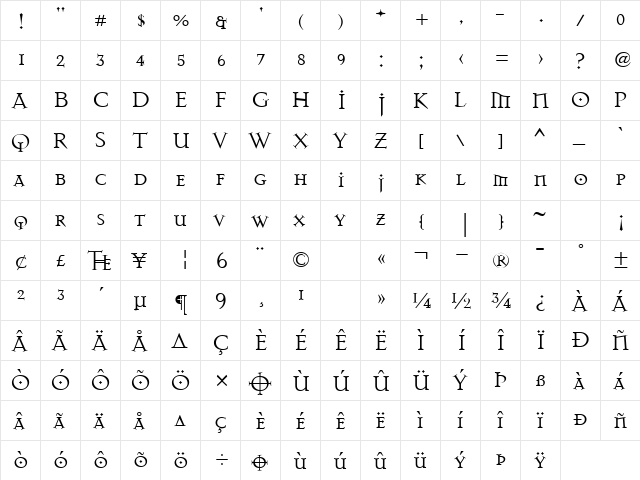
MasonAlternate Regular
Design Context for MasonAlternate Typeface
MasonAlternate is a composed and adaptable typeface that performs quietly and consistently across a wide range of design contexts.
Pro Tip: Pair MasonAlternate with a font of contrasting weight or personality to build a more expressive typographic hierarchy.